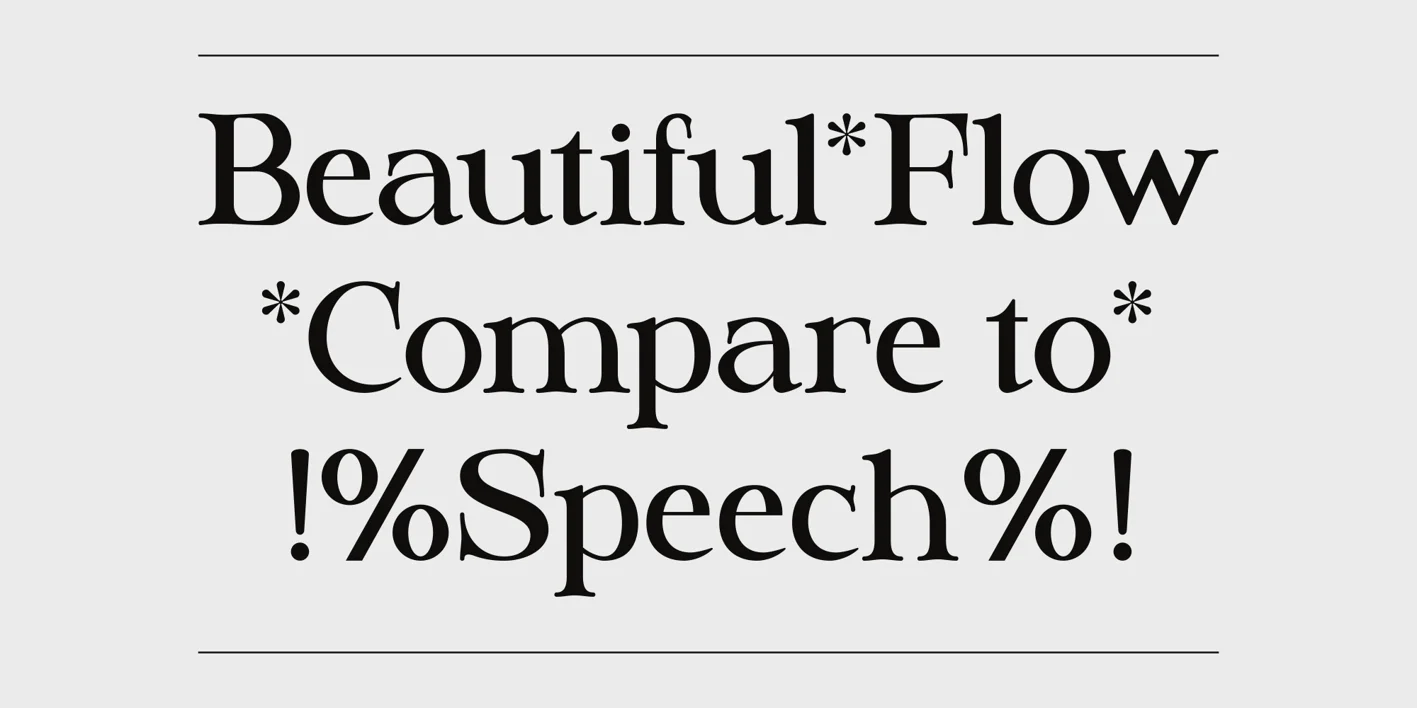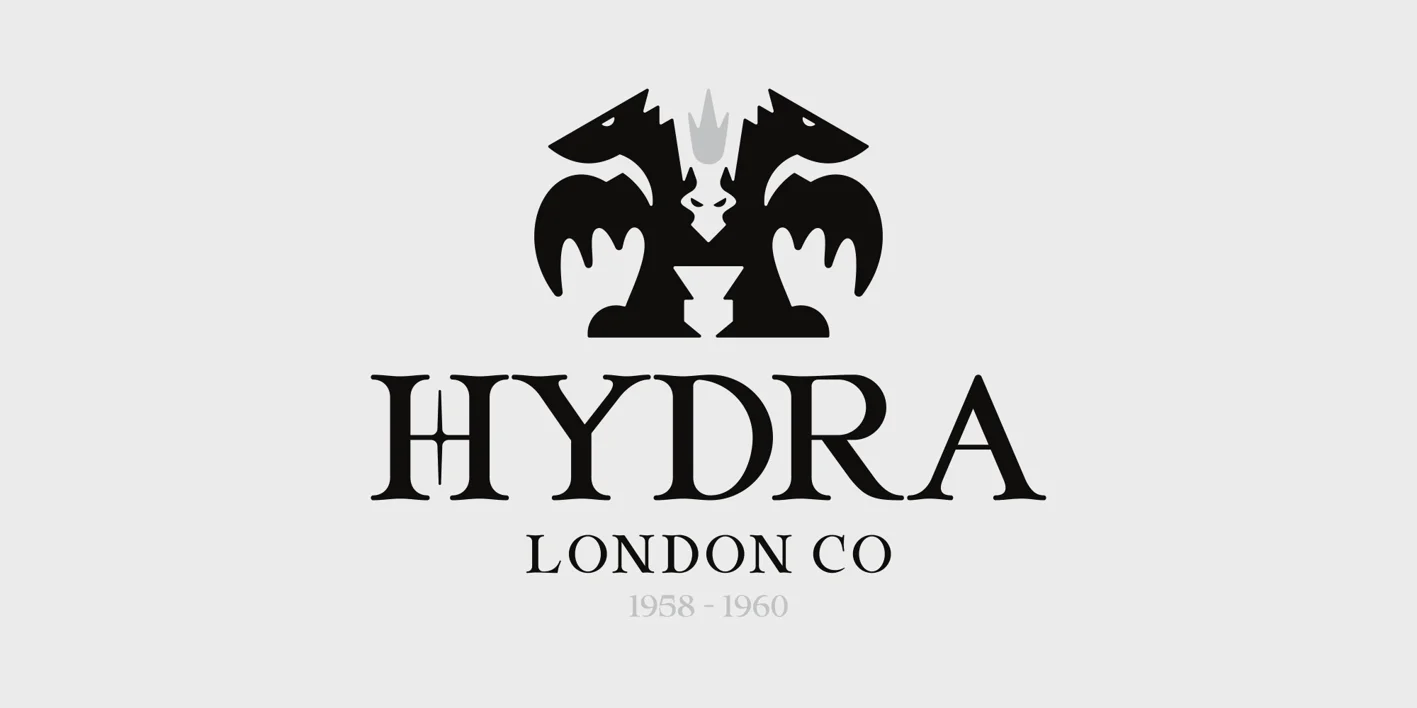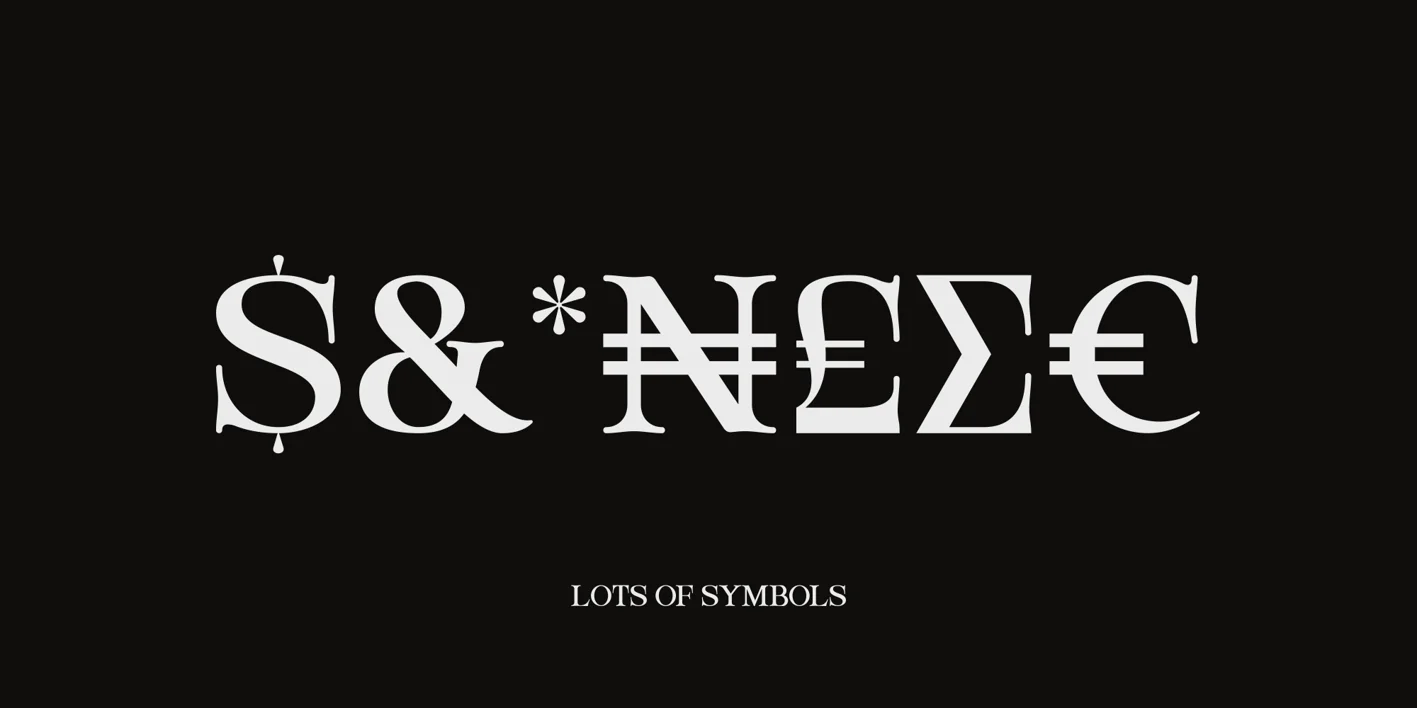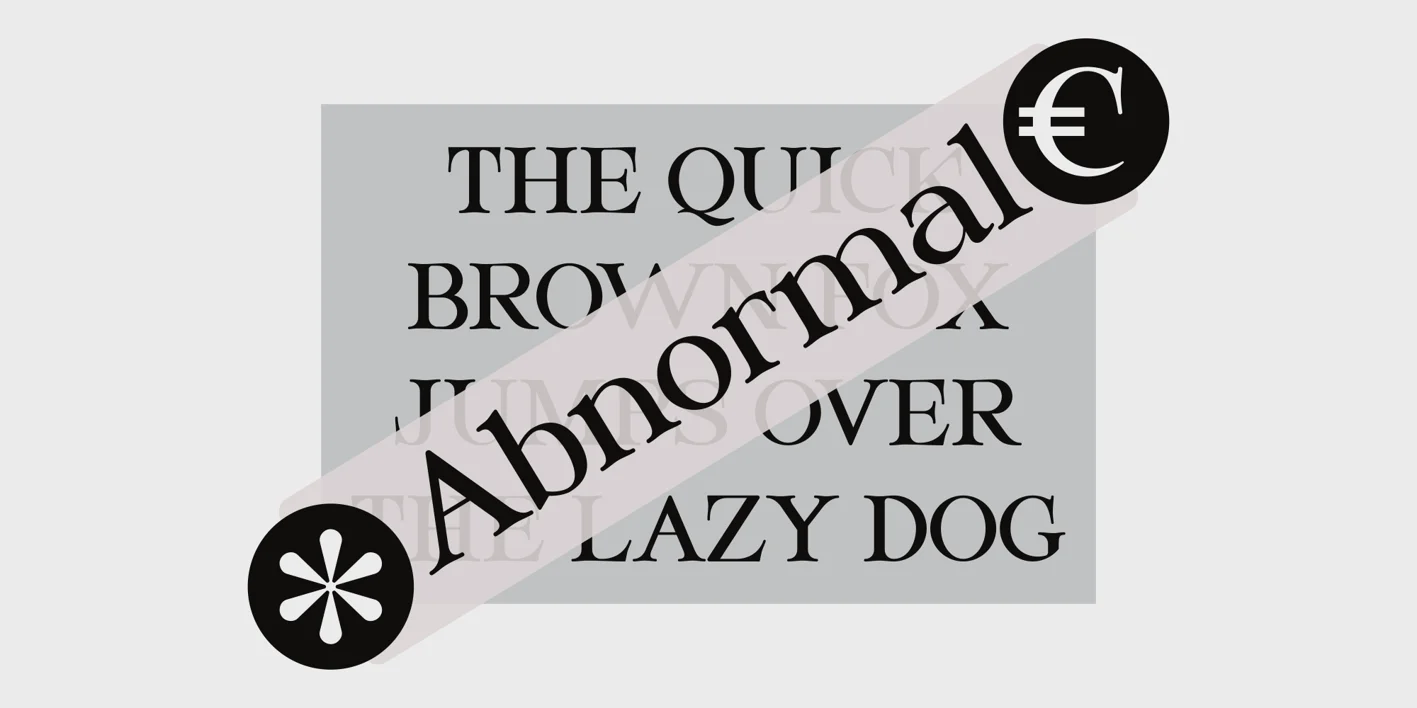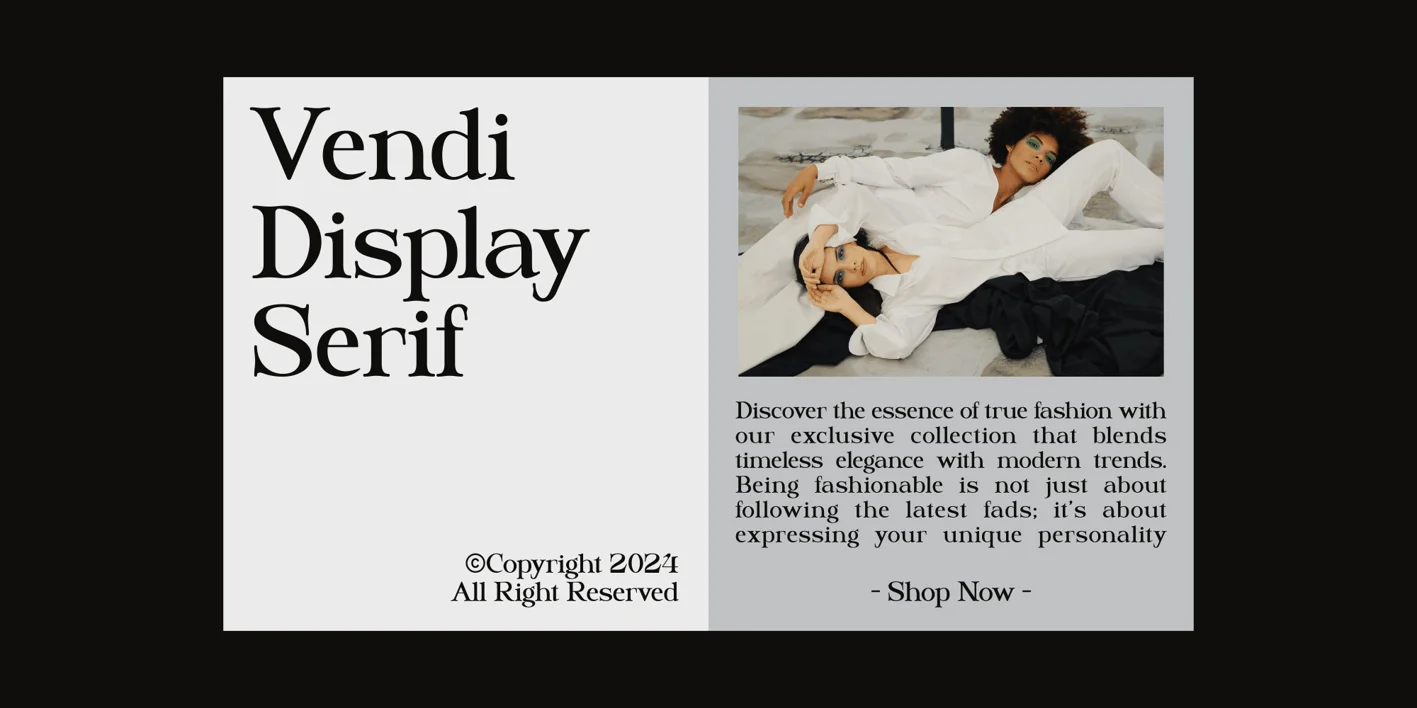
Vendi Font
A good typeface communicates tone before a single word is read. Vendi achieves this through strong typographic hierarchy support. The typeface brings a versatile sensibility to a broad range of creative disciplines, with distinctive character without sacrificing readability that holds up whether the work is print-first or screen-first.
In practice, Vendi proves particularly effective for editorial layouts, annual reports, environmental graphics, signage systems, web design. Designers reaching for it find that the type decisions feel resolved rather than laboured — a useful quality when client timelines are tight.
The range of applications extends to social media graphics, product labels, logo design, packaging design. That breadth is deliberate: the proportions and spacing were stress-tested across a wide range of mock briefs before the typeface was finalised.
UX designers establishing typographic systems for digital products find Vendi a reliable choice for projects that demand both personality and restraint. The design avoids the self-conscious quirkiness that dates quickly, settling instead for considered distinctiveness that holds up over time.